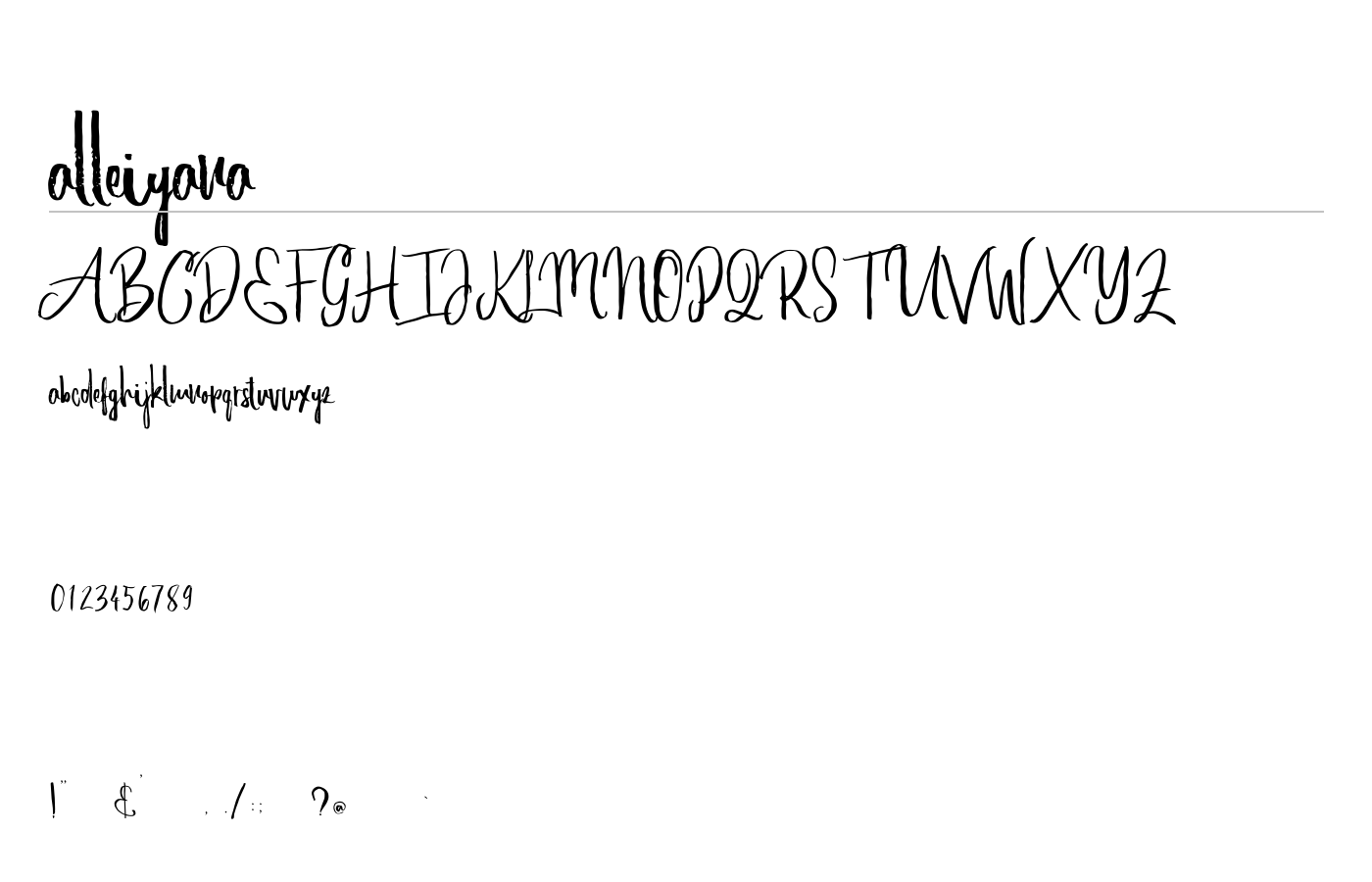
Alleiyana is a playful, hand-drawn script font with a casual and organic feel, characterized by its tall, narrow letterforms and fluid, slightly uneven strokes. Its lively style and delicate weight make it perfect for creative, informal designs such as personal branding, invitations, or artistic projects where a handcrafted touch is desired. This font adds personality and charm, making it ideal for eye-catching headlines and decorative use rather than body text.
alleiyana Font
About alleiyana Font
| Font family | alleiyana Font |
| Designer | thirtypath |